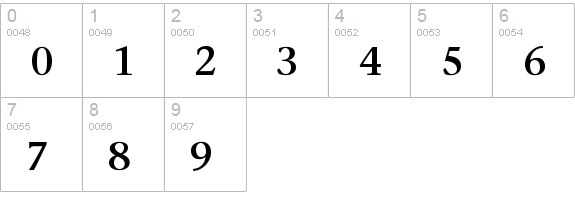
Stone Serif Semi Bold is a strong, high-contrast variant in the Stone typeface family \xE2\x80\x94 well suited to headlines, attention-grabbing titles, and strong calls-to-action.
Introducing Stone Serif Semi Bold font, a versatile and elegant typeface that combines classic serifs with a modern twist. This font exudes sophistication and style, making it perfect for a wide range of design projects. The semi bold weight adds a touch of boldness and emphasis to your text, making it stand out with confidence. What's more, Stone Serif Semi Bold font is available for free download at FontsMarket.com. This means you can easily access this high-quality font without any cost, making it a valuable addition to your font library. Whether you're working on branding, editorial design, or any other creative project, Stone Serif Semi Bold font is sure to elevate your work with its timeless appeal and professional finish. Download it today and see the difference it can make in your designs.